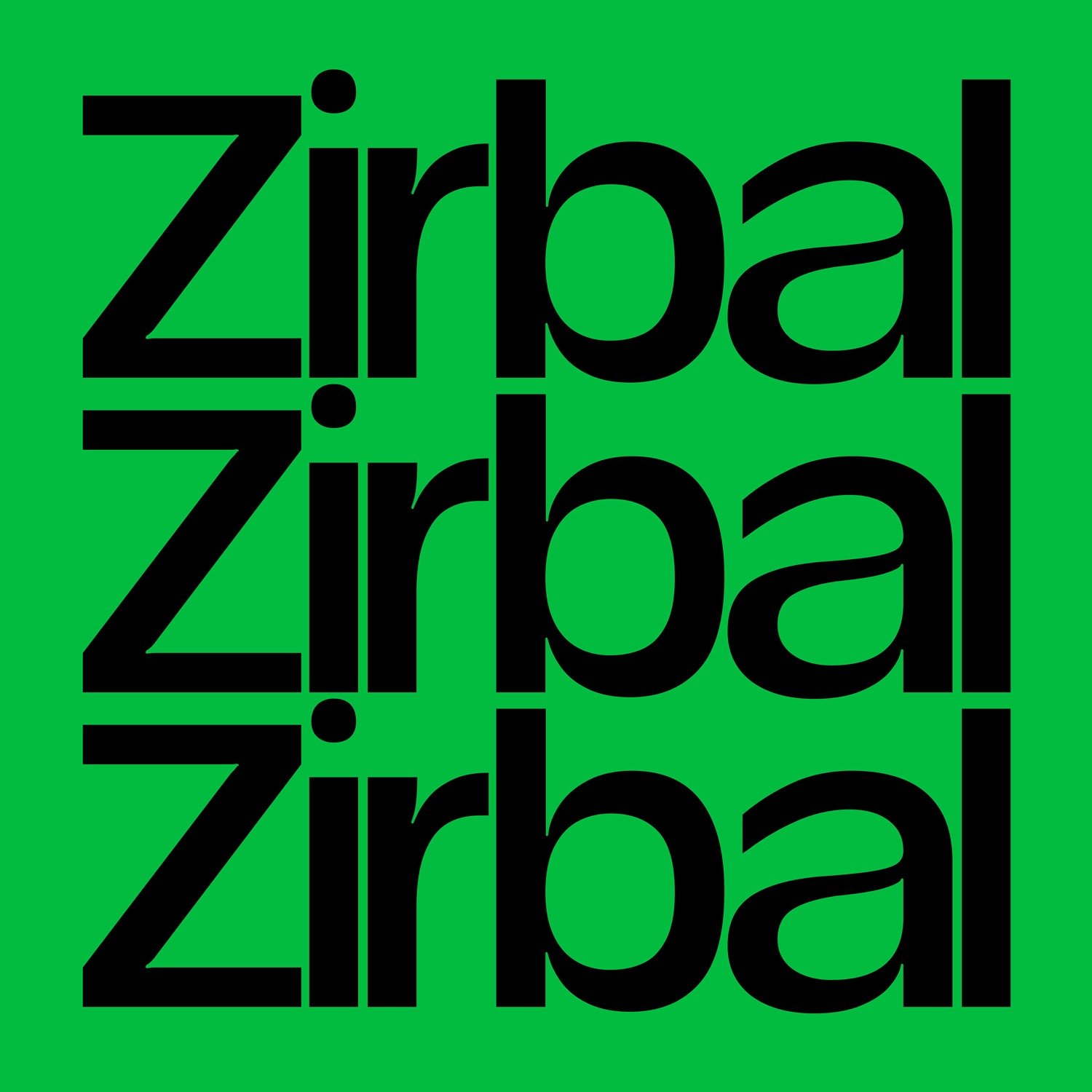
T1 Zirbal Typeface | Mindsparkle Mag
T1 Zirbal Typeface by Daniel Stuhlpfarrer. The harsh weather of the subalpine zone, sharpened the extremely resistant and yet vibrant Zirbal to what it is...